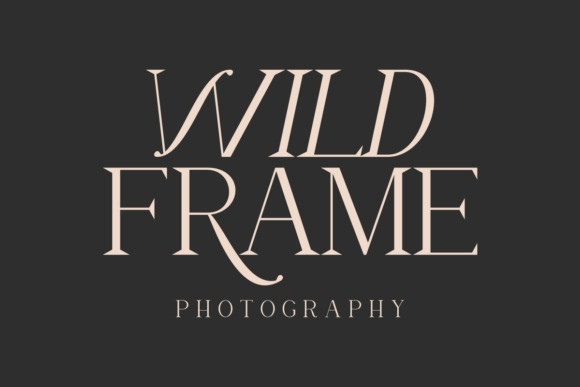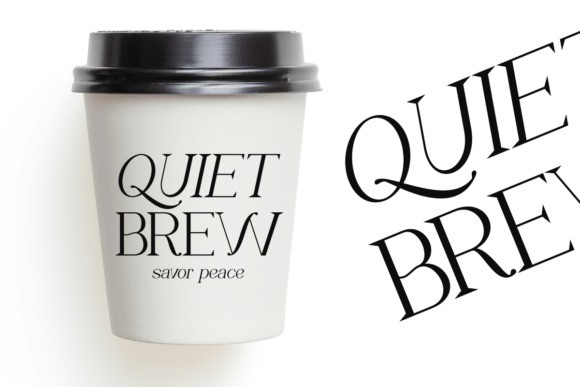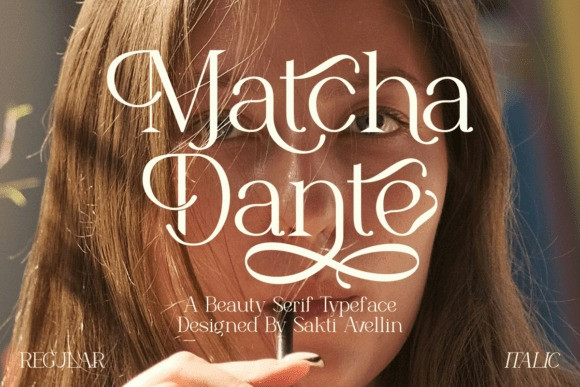
Matcha Dante Font
Matcha Dante Font is an elegant and beautiful serif font, ideal for a range of design projects that demand a feminine and classic touch. It features a sleek serif design with smooth curves, which gives a modern yet timeless impression. The font includes a rich selection of alternate characters, allowing for the customization of typography with various styles.
With multilingual support, Matcha Dante is perfectly suited for international projects. This versatile font is great for beauty products, fashion branding, magazine titles, books, album covers, and a variety of stationery like wedding invitations, greeting cards, and business cards. Its refined style also makes it an excellent choice for creating distinctive logos.